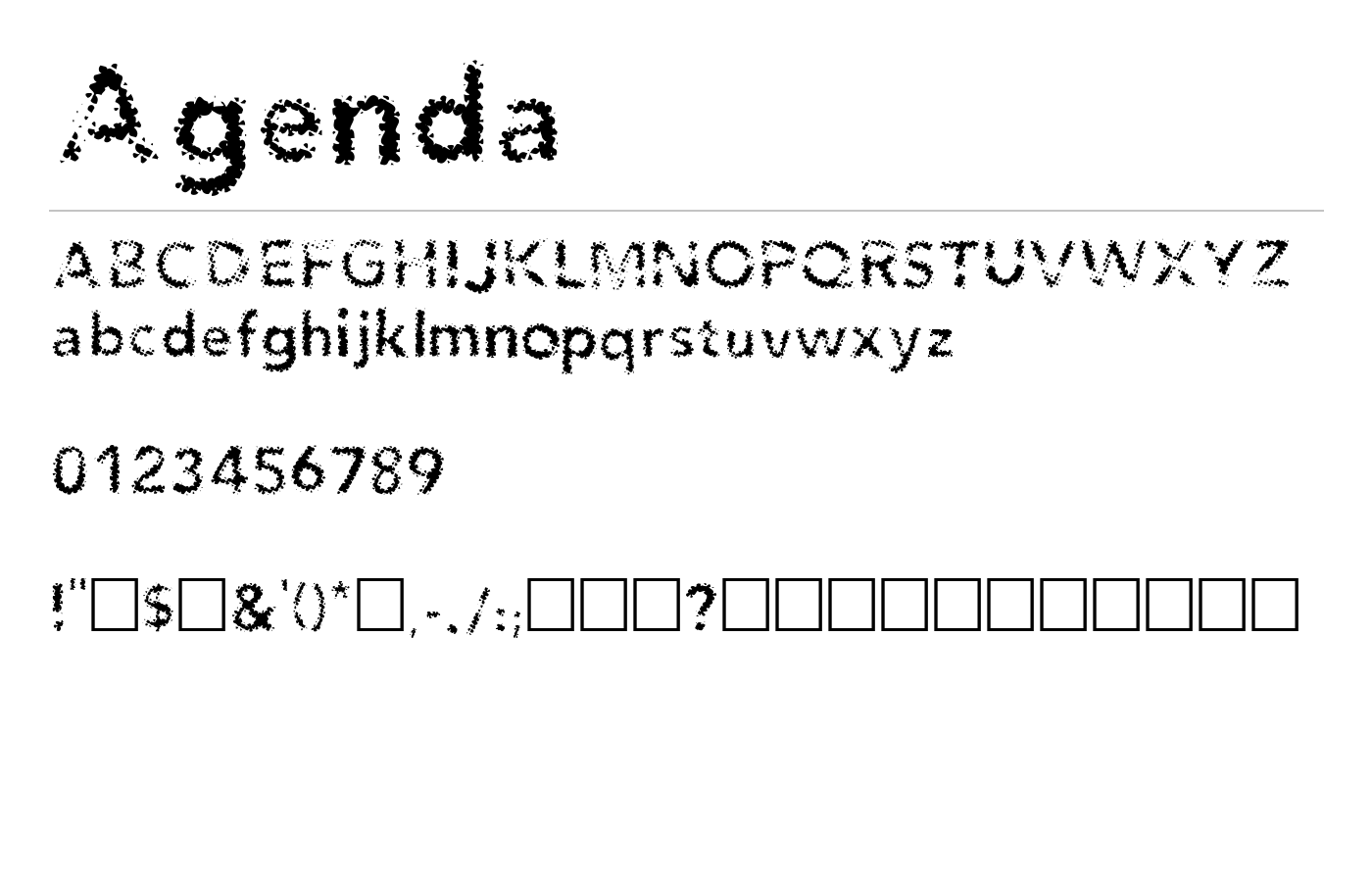
Agenda is a textured, sans serif typeface that features a distinctive, stippled dot pattern giving it a rough, handcrafted feel. Its letterforms are clean and geometric with a normal width and moderate x-height, making it a quirky yet legible choice. This font works well for creative projects and headlines where a playful, unique style is desired, adding personality without compromising readability.
Agenda Font